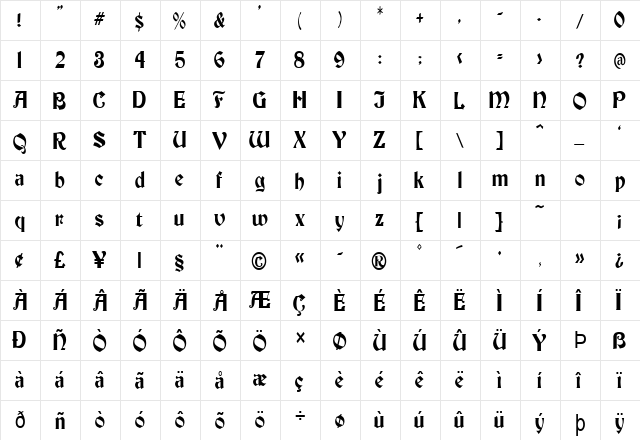
Brandywine-Condensed Normal
Design Context for Brandywine-Condensed Typeface
Brandywine-Condensed is a composed and adaptable typeface that performs quietly and consistently across a wide range of design contexts. The condensed width makes it efficient for tight spaces without sacrificing legibility.